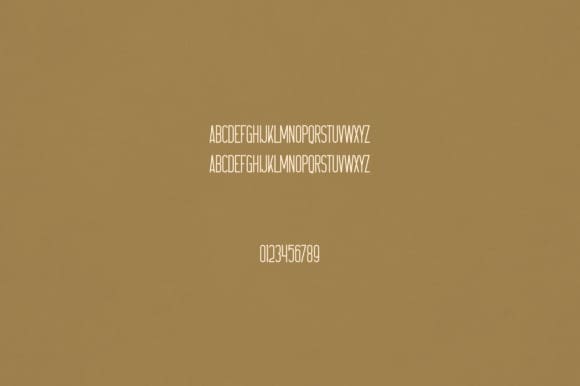
Solange Font
Solange Font is an elegant and versatile display font that will make your typography truly unique! It will enchant every logo, branding, headline, or plain text!